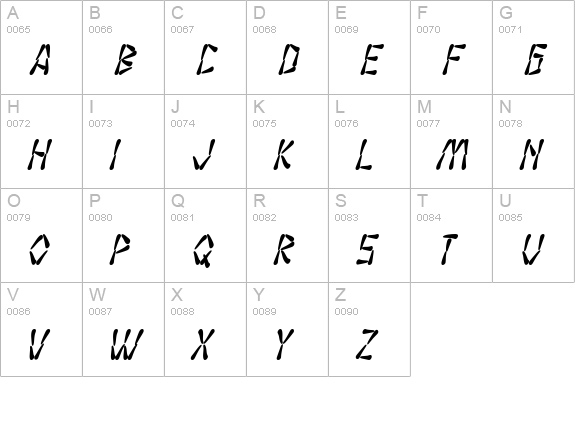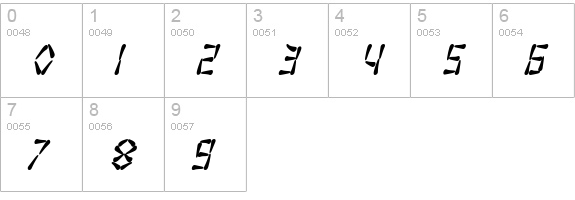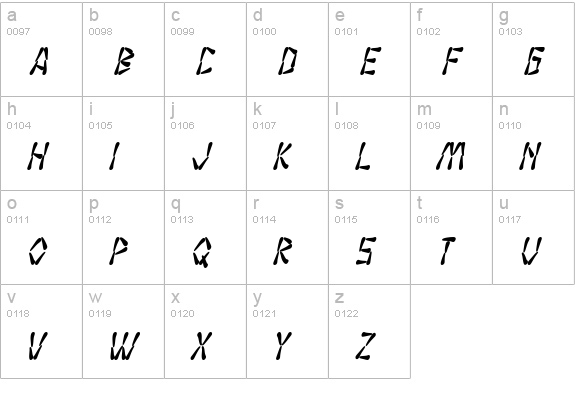
SF Wasabi Condensed Bold Italic Font Details
SF Wasabi Condensed Bold Italic is a strong, high-contrast, condensed-width, italic variant in the SF typeface family \xE2\x80\x94 well suited to headlines, attention-grabbing titles, and strong calls-to-action.
The SF Wasabi Condensed Bold Italic font is a visually striking typeface that effortlessly combines the boldness of condensed letterforms with the elegant slant of italics. Its unique design and strong presence make it perfect for creating eye-catching headlines, posters, and branding materials that demand attention. This font boasts a modern and edgy aesthetic, with its condensed proportions adding a sense of compactness and efficiency to any design. The italicized slant adds a touch of sophistication and dynamism, making it an ideal choice for adding emphasis and expressing creativity. SF Wasabi Condensed Bold Italic is not only visually appealing but also versatile in its applications. From fashion magazines to tech websites, this font adds a touch of modernity and professionalism to any project. Its bold and italicized nature allows for seamless integration with other fonts to create unique typographic compositions. One of the best things about SF Wasabi Condensed Bold Italic is that it is freely available to download at FontsMarket.com. This means that designers, creatives, and enthusiasts can easily access and utilize this font without any restrictions. Whether you're a professional designer or an aspiring artist, this font is a valuable addition to your creative arsenal. So, if you're looking to add a bold and italicized touch to your designs, SF Wasabi Condensed Bold Italic is the perfect choice. Download it for free at FontsMarket.com and let your creativity soar.